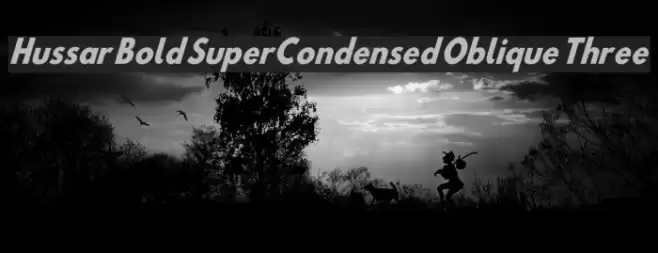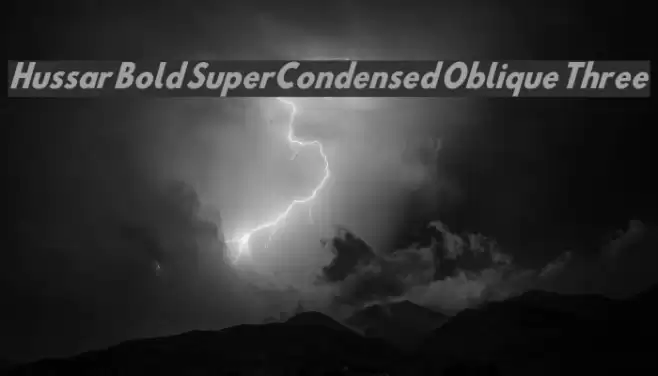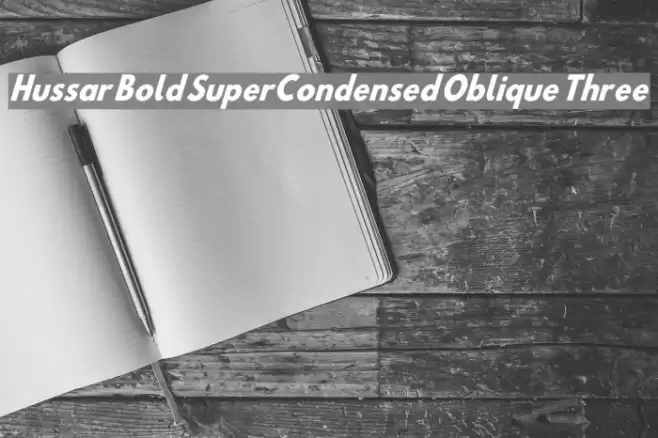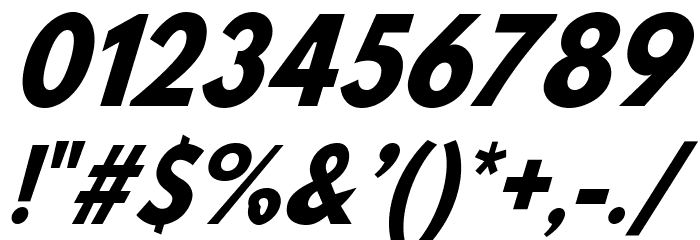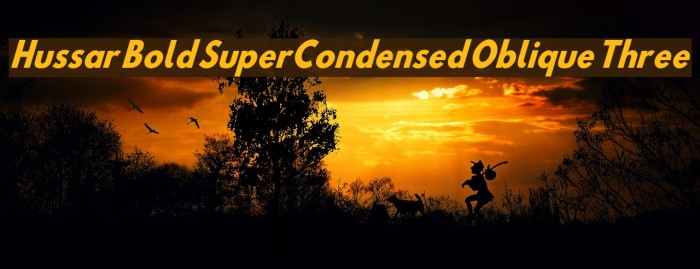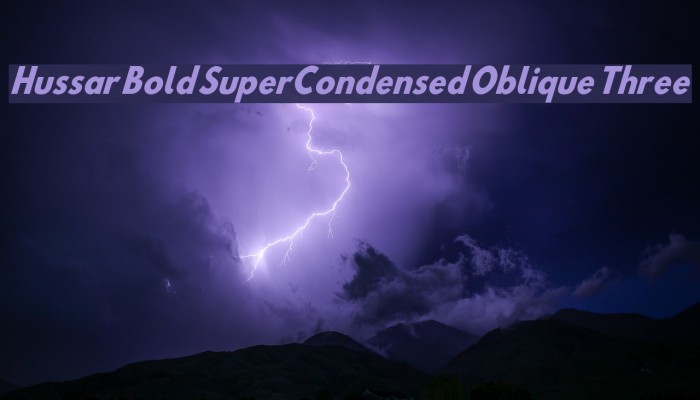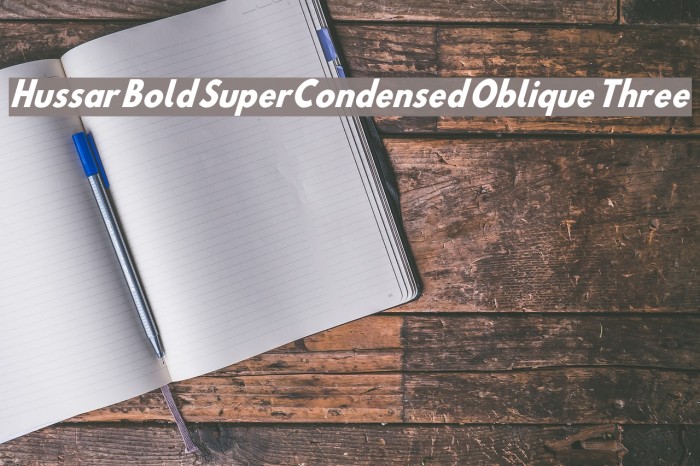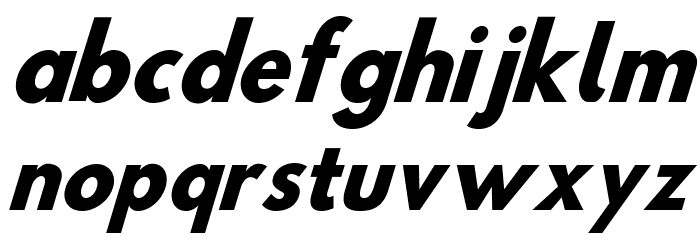
Hussar Bold SuperCondensed Oblique Three
This font features a bold and dynamic style with a super condensed and oblique design. The characters are tightly spaced, enhancing its compact appearance. The strokes are thick and consistent, providing a strong visual impact. The oblique angle adds a sense of motion and modernity, making it suitable for attention-grabbing headlines and titles. The uppercase and lowercase letters maintain a uniform style, while the numerals and special characters are clearly defined, ensuring readability.
A bold, super condensed, and oblique font with tight spacing and strong visual impact.
- Proposed Projects: Ideal for use in advertising, posters, and branding where a bold statement is needed.
- Width: Condensed
- Character Spacing: Tight